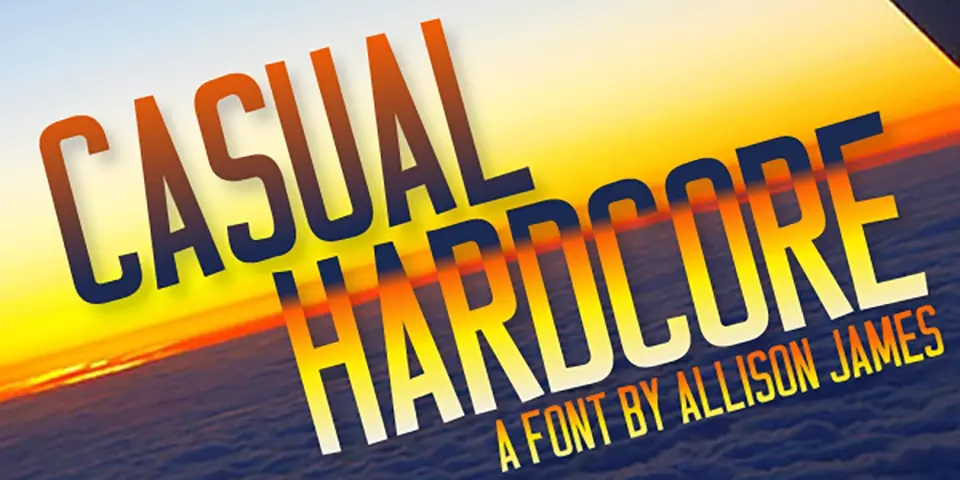
Casual Hardcore Font
Casual Hardcore is a bold, contemporary display font featuring tall, narrow characters that convey strength and modernity. This striking typeface combines geometric precision with assertive styling, making it ideal for impactful headlines, posters, and attention-grabbing designs. With its commanding presence and clean aesthetic, the font delivers powerful visual impact for branding projects and advertising campaigns requiring a strong, modern appearance.